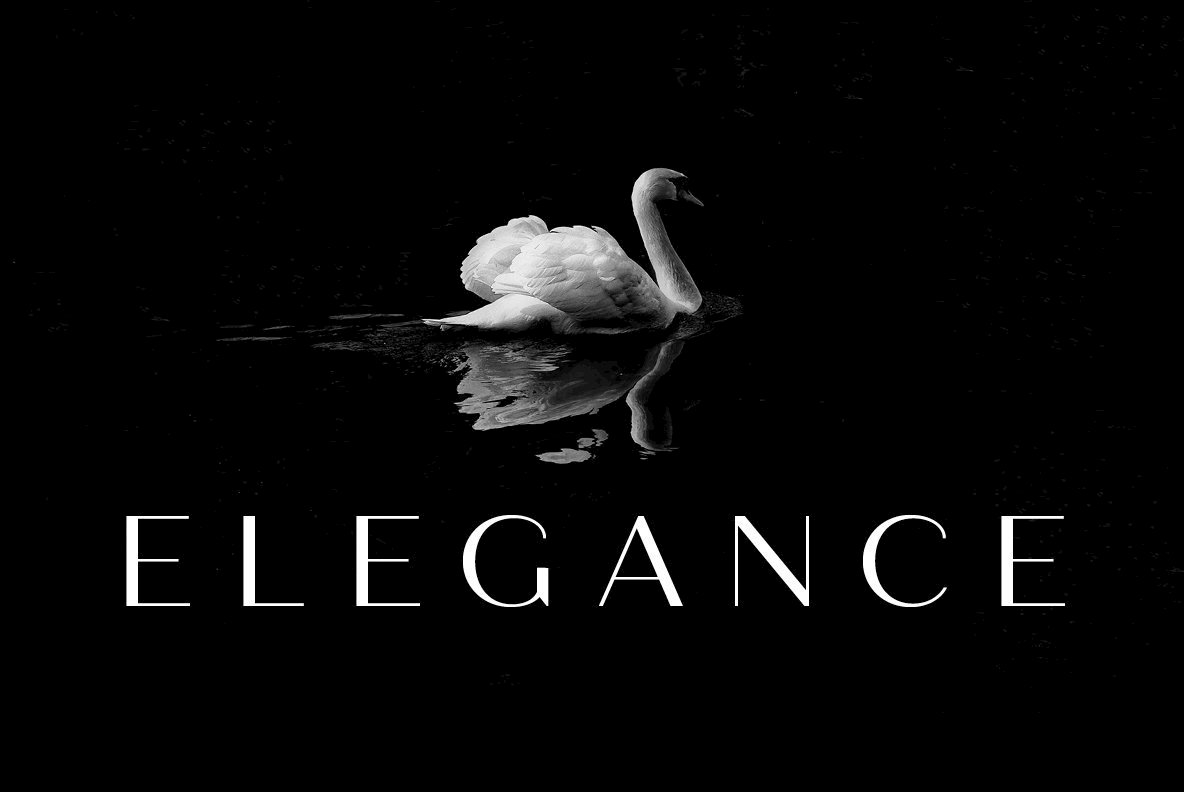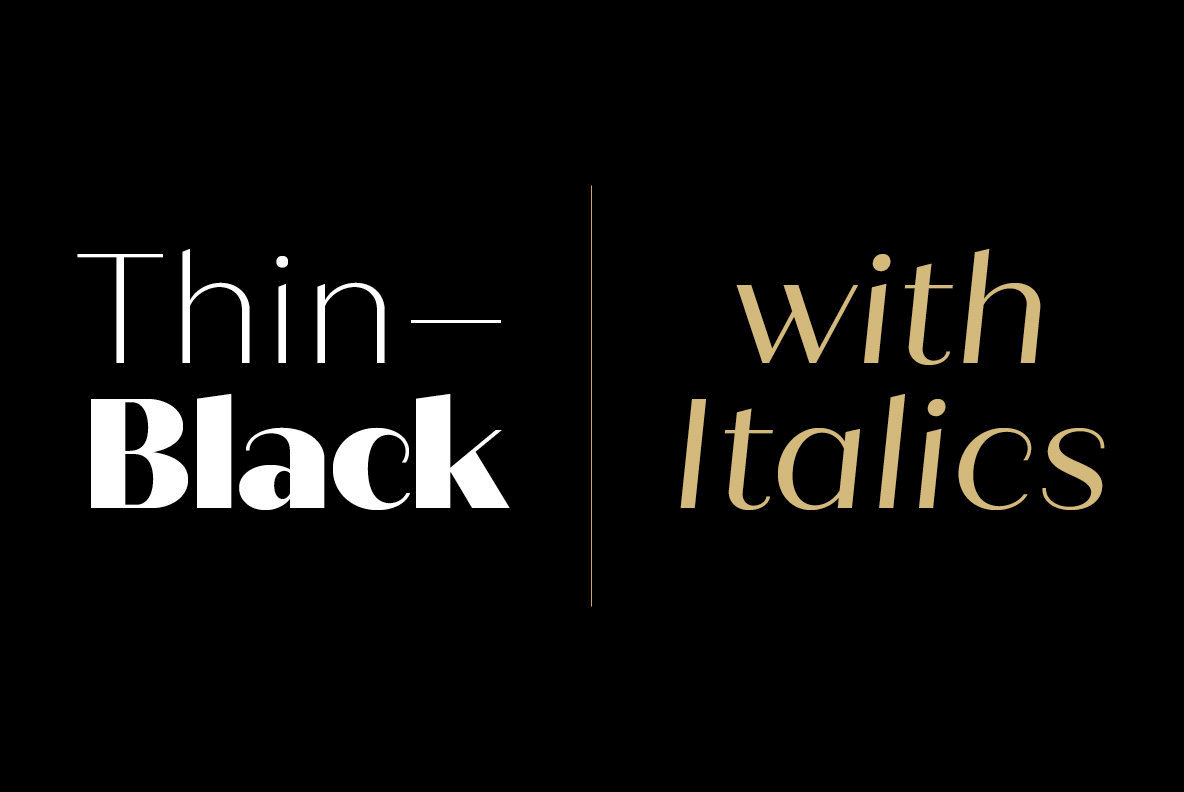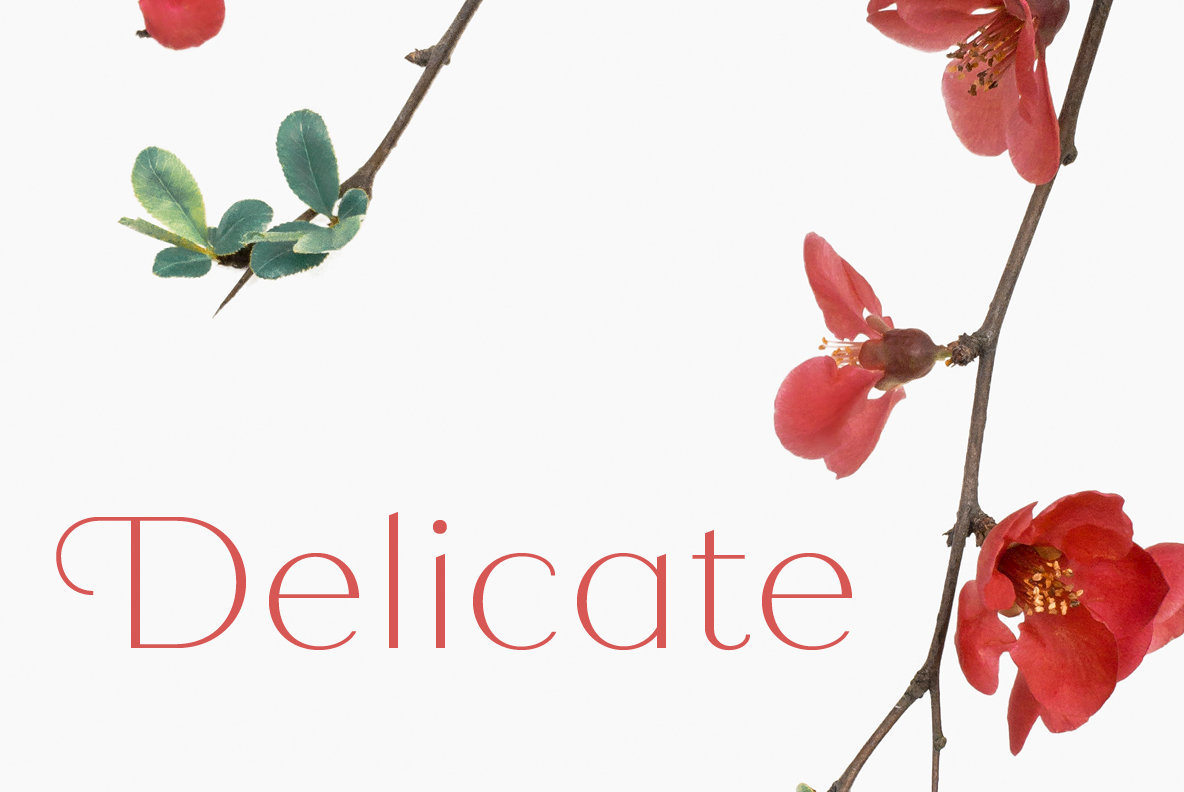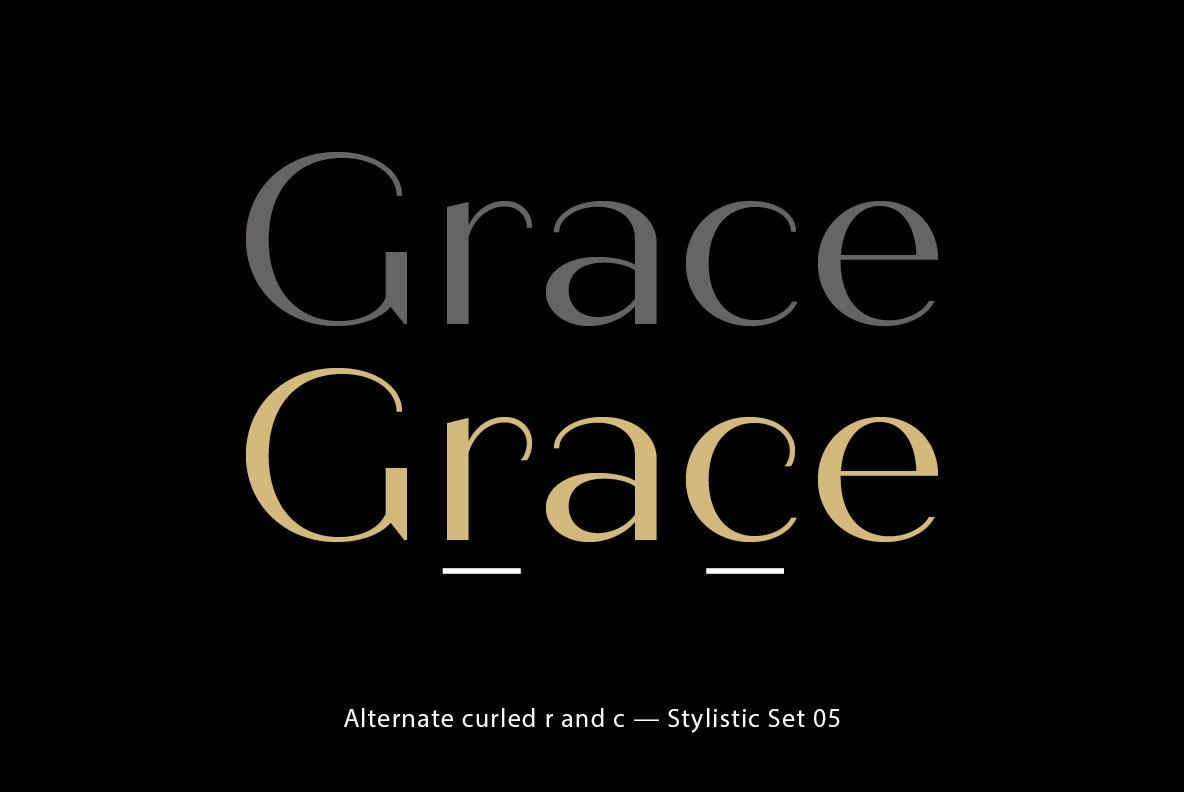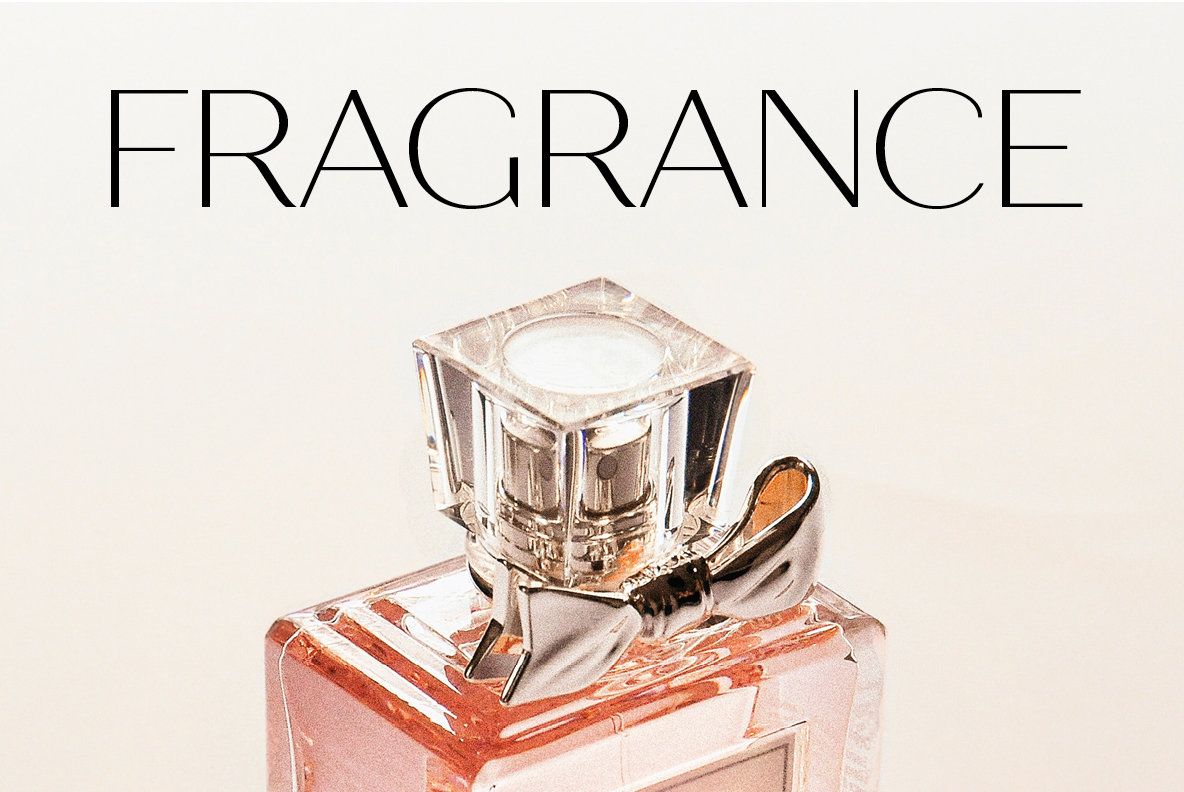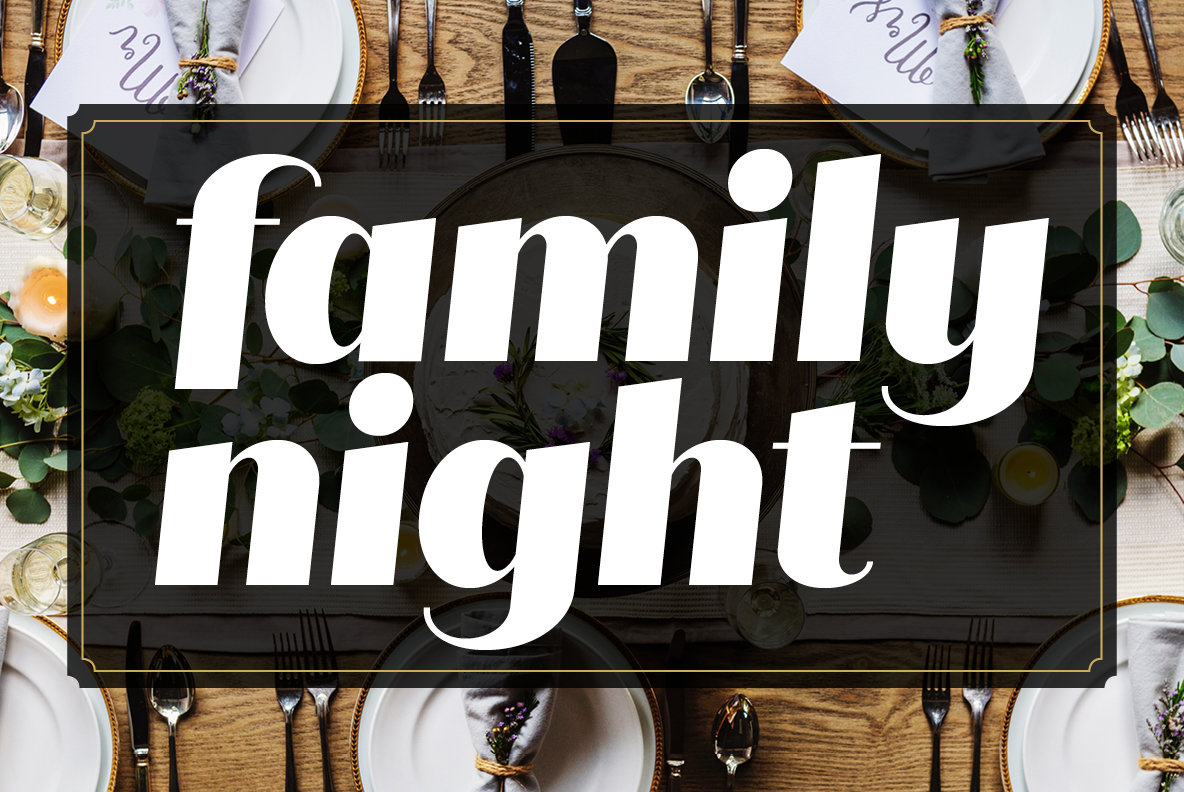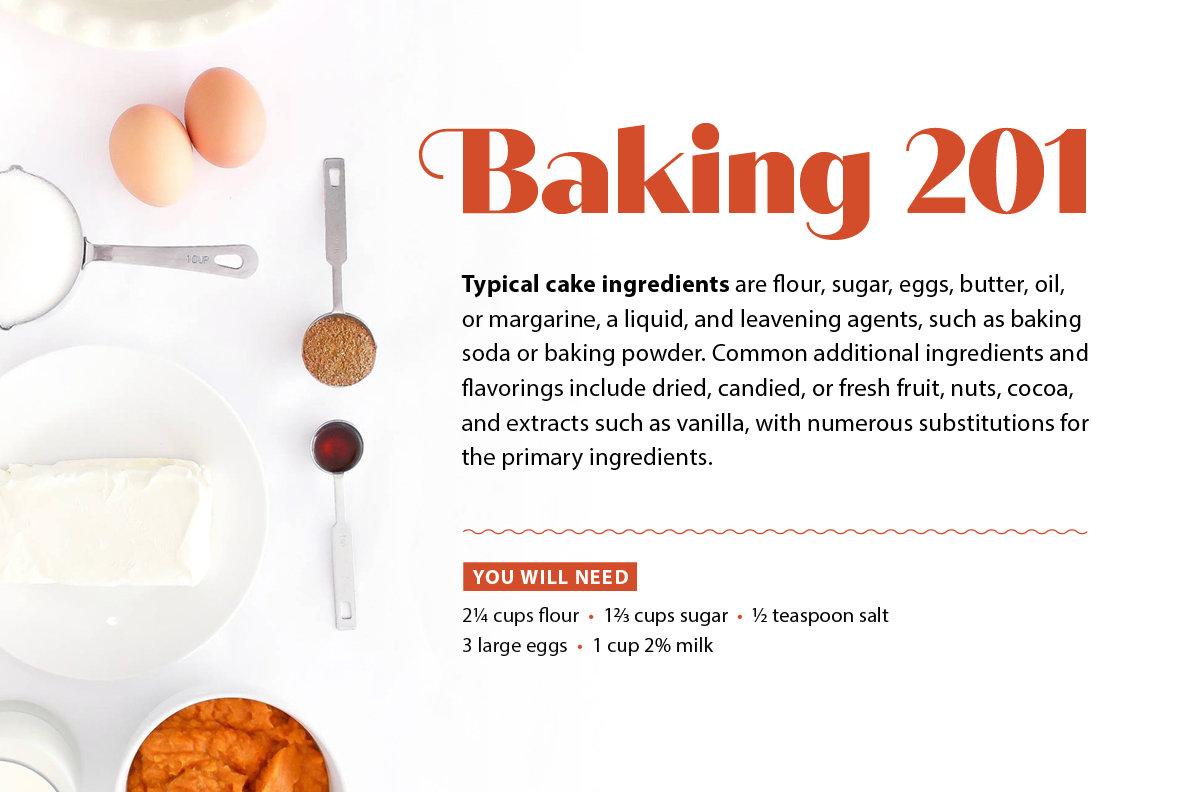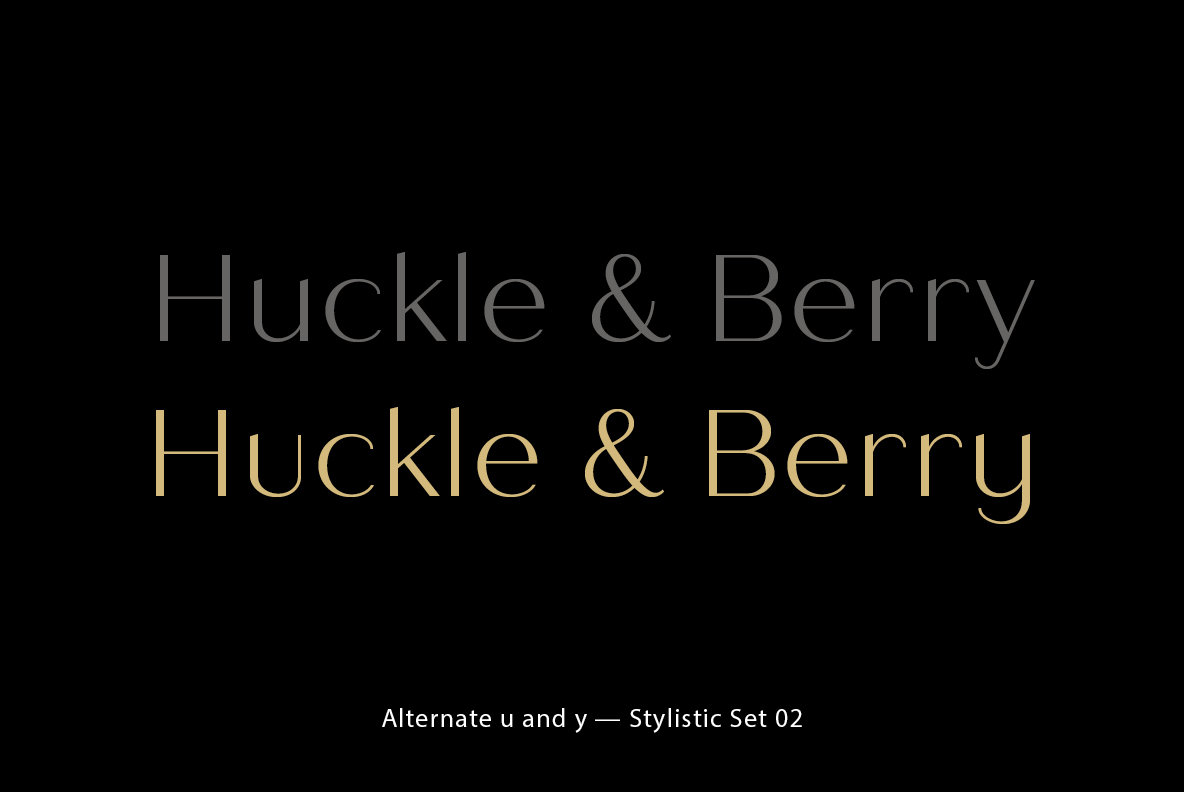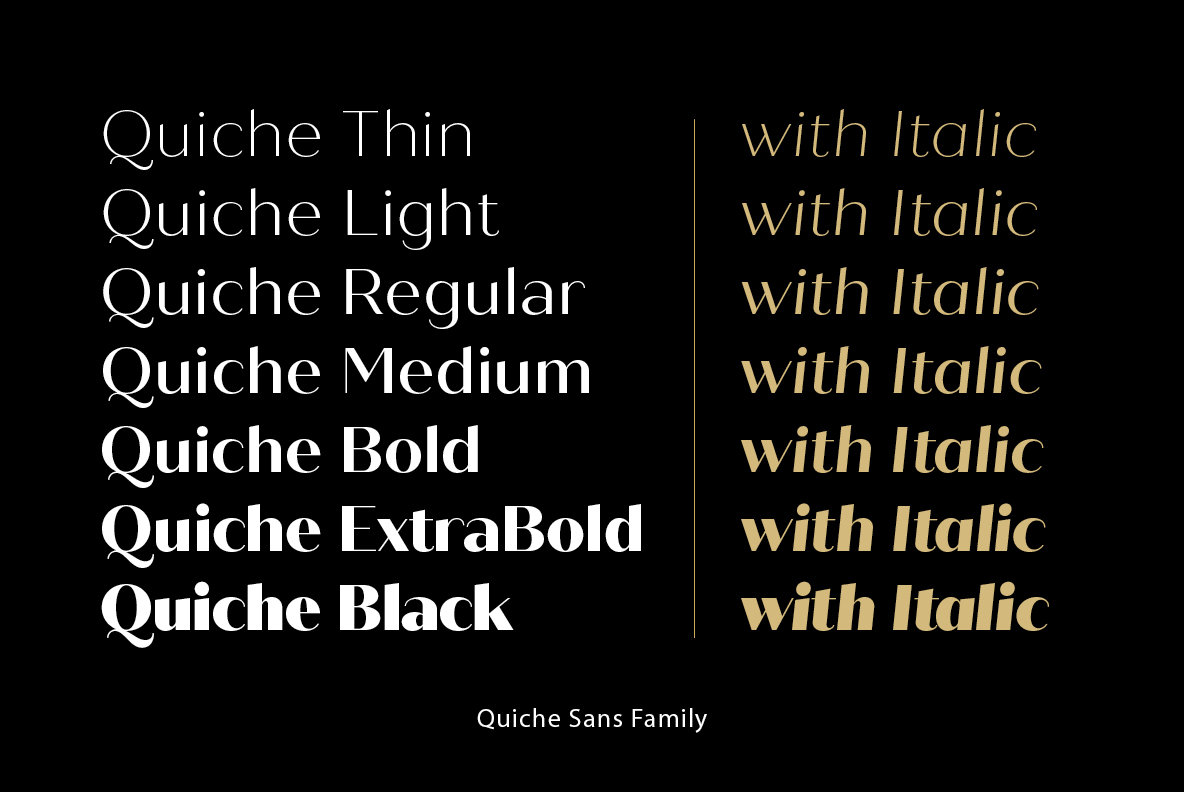
Quiche Sans Font
Quiche Sans is a high-contrast, sans serif typeface with monoline stroke endings, angled stems, and geometric proportions. A sibling to the Quiche family, with the ball terminal endings removed. With weights ranging from thin to black and matching italics, there are a variety of applications that the fonts can be used for: print, web, branding, advertising, magazines, products, packaging, labels, etc.
The design is influenced by the serif didone genre, characterized by its elegance and extreme thick/thins, but it removes the serifs for a unique and modern expression and tapers out the stroke endings for a sophisticated monoline appearance.
Quiche Sans has many OpenType features, including:
• Multiple stylistic alternates
• Swash capitals
• Ligatures
• Fractions, subscripts, and superscripts
This font has extensive Latin language support for Western, Central, and South Eastern European.